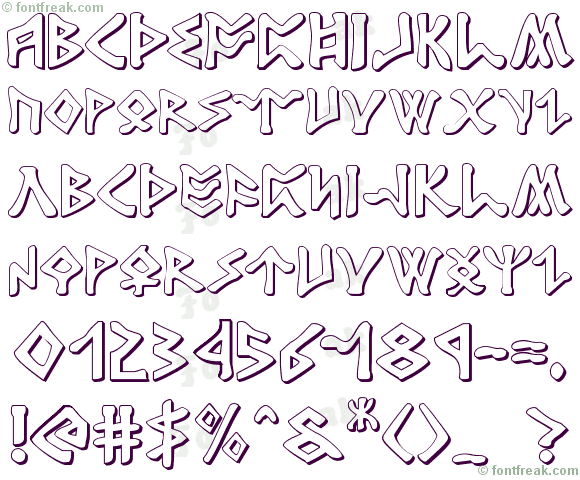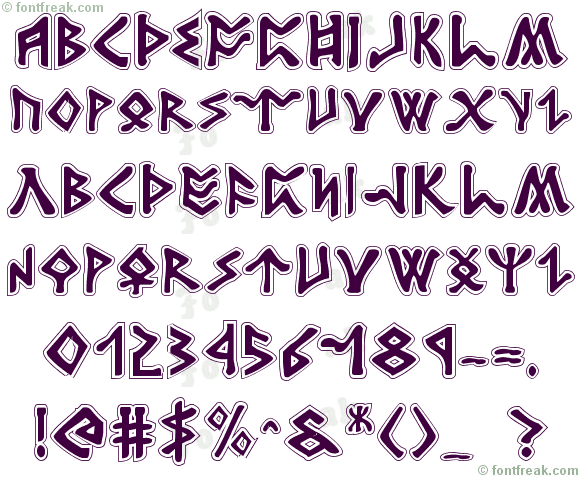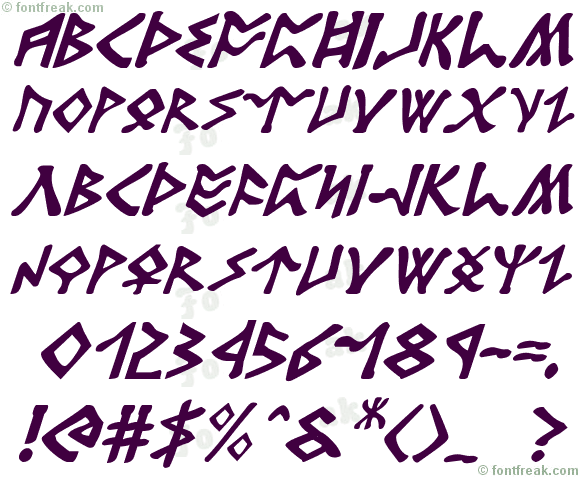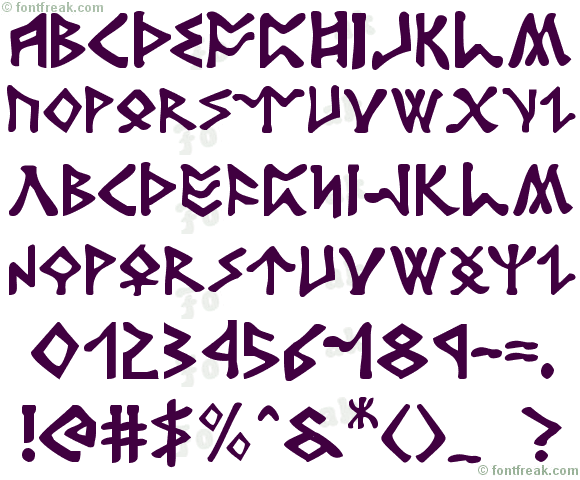
Rosicrucian
Rosicrucian Academy
Rosicrucian Italic
Rosicrucian 3D
About Rosicrucian
The Rosicrucian font, designed by Daniel Zadorozny in 2009, is a striking display typeface that embodies a unique blend of decorative elements and modern aesthetics. As a part of the Iconian Fonts collection, it offers a captivating visual style that is both bold and intriguing. The font is characterized by its distinctive 3D appearance, where each letter features a pronounced stroke weight that creates depth and dimension. The high contrast between thick and thin strokes adds an element of sophistication, making it ideal for a variety of design applications.
The spacing of the characters is well-considered, allowing for clarity and legibility even in larger formats. This makes the Rosicrucian font particularly suitable for eye-catching uses such as movie posters, where dramatic titles need to command attention. Additionally, its decorative nature lends itself beautifully to wedding invitations, where a touch of elegance is desired. The font can also be effectively utilized in branding for small businesses, especially those looking to create a memorable identity in the creative or artistic sectors. Content creators will find it a great choice for social media graphics, where a unique font can enhance visual storytelling.